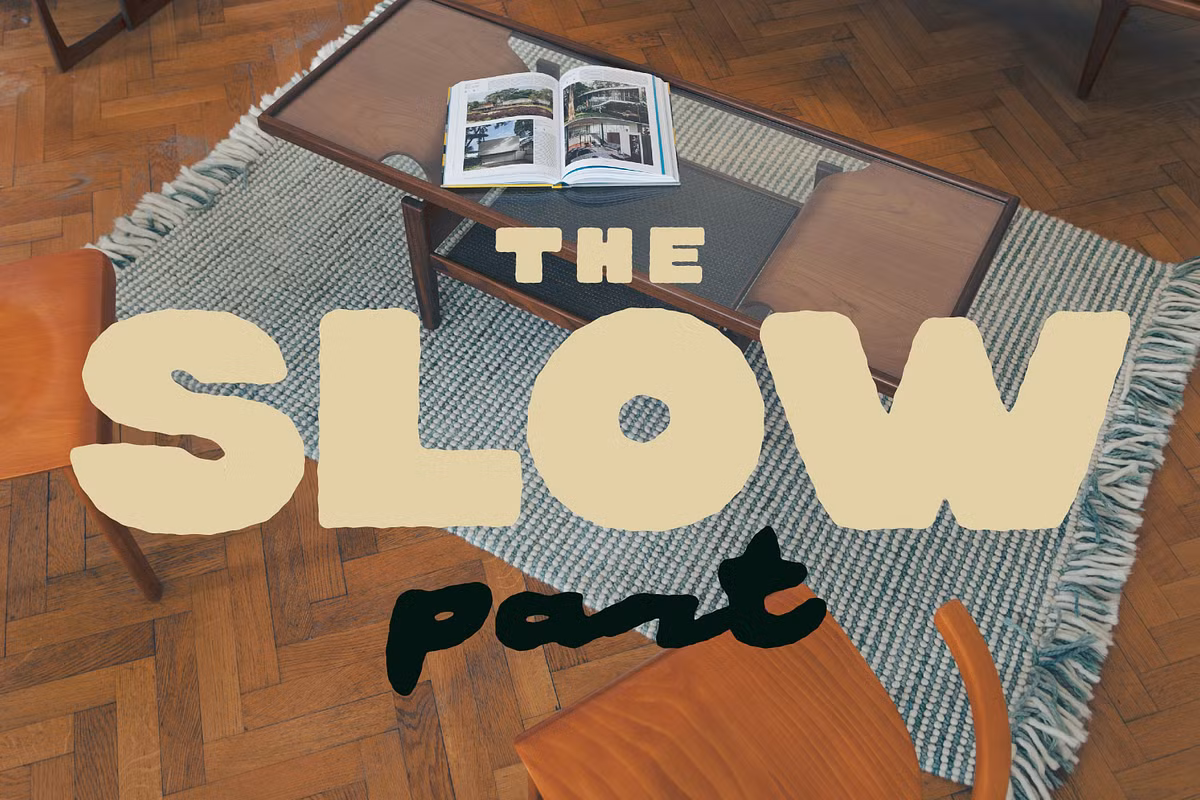
Late Cinema Soft Handwritten Script
Discover the Unique Charm of Late Cinema Handwritten Script
If you are looking for a font that feels strong and warm try Late Cinema. Late Cinema is a font that mixes the look of a sans serif typeface with the casual feel of a handwritten script. You can use Late Cinema for a logo for a headline or, for a branding element. I have used Late Cinema in my work. Late Cinema fits many projects. Late Cinema is an option, for your projects. You will explore the features of Late Cinema, the applications of Late Cinema and why Late Cinema stands out among the fonts. You will learn how to download Late Cinema for free.
Late Cinema font example on a design project
Example of Late Cinema in design.
Features of Late Cinema Handwritten Script
Late Cinema has a mix of traits that the designers like. Here are some features of Late Cinema:
• Bold Uppercase Letters: I notice that the uppercase letters grab attention. I use the letters for headlines and titles that need to stand out.
• Warm Lowercase Script: I notice that the lowercase letters give a feel. I notice that the lowercase letters add intimacy and a natural rhythm to the text. I think the lowercase letters work well for body text or secondary elements.
• Language Support: Late Cinema supports the Latin based languages. You can use Late Cinema for projects.
• Versatile Applications: I use Late Cinema for the branding the posters, the packaging and the social media graphics. Late Cinema meets the design needs. Late Cinema works in projects.
Showcasing uppercase and lowercase letters of Late Cinema
Showcasing the unique features of Late Cinema.
How to Use Late Cinema in Your Projects
You can add Late Cinema to the design projects you work on easily. Here is how you can use the Late Cinema font well:
1. Choose the Right Context: I think about the tone of my project. I use the letters, from Late Cinema for a strong message. I use the lowercase script, from Late Cinema for a feel.
2. Balance Structure with Emotion: Late Cinema fits projects that need the structure of the sans serif parts and the human feel of the script. I have used Late Cinema in a logo and Late Cinema felt both strong and warm. Late Cinema works in branding to show the reliability of the design and still feel approachable.
3. Experiment with Compositions: I mix lowercase letters to make designs. For example I use letters, for the brand name. I use lowercase letters, for the tagline or subtitle. Uppercase and lowercase letters create contrast.
4. Test Readability: I always make sure the text is easy to read. I test the font in sizes. I test the font on many backgrounds to see how the font performs. Late Cinema aims for impact. Readability must come first.
Late Cinema font displayed in various design contexts
Late Cinema used in different design contexts.
Late Cinema is more than a font. Late Cinema is a tool that mixes a look with a feel. Late Cinema works well for the design projects. If you need a headline that stands out or a brand that feels close Late Cinema does the job. You can download Late Cinema for free today. You can try Late Cinema. See how Late Cinema changes a design. I have tried Late Cinema and Late Cinema gave my work a look. A good font can change the design. Late Cinema lets you add the creativity to any project.